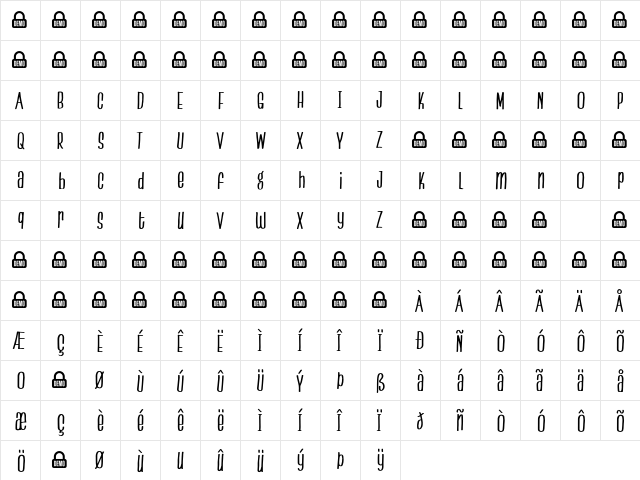
Handa Regular
| Designer | Maximillian Limpo |
Design Context for Handa Typeface
Handa flows with the natural rhythm of handwritten lettering, making it ideal for designs that call for warmth and personal expression.